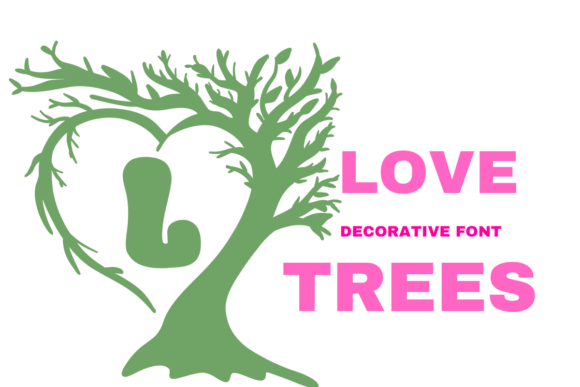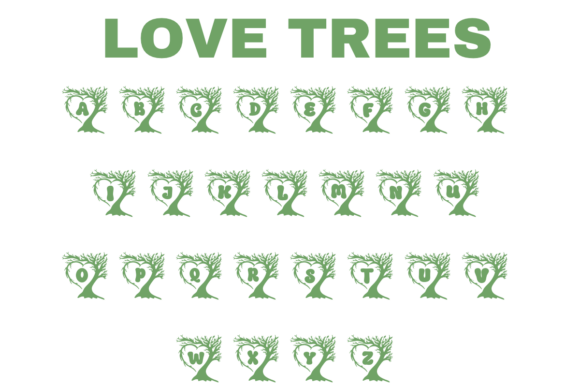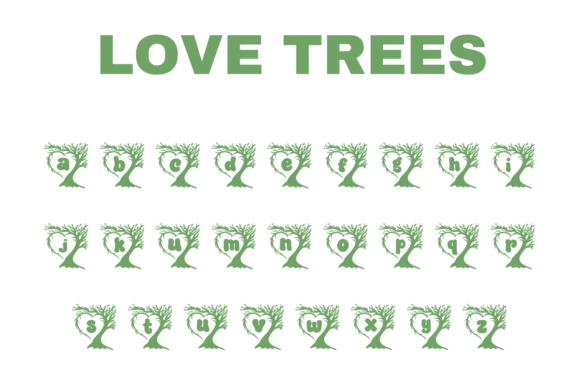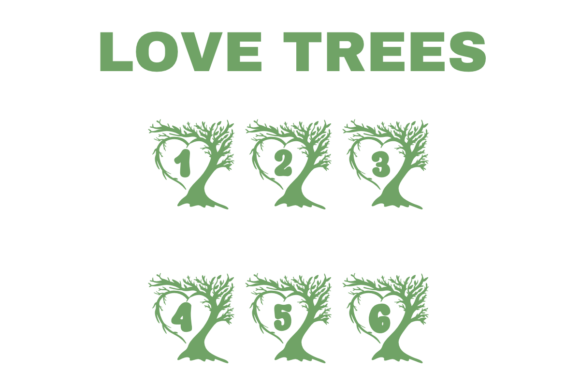
Love Trees Font: A Whimsical Decorative Font for Cricut & DIY Projects
About the Love Trees Font
The Love Trees Font is here to transform your projects with its distinctive character and style. Love Trees is a decorative font. You can use it for taking notes, writing a diary, or making greeting cards. However, you can still use it for other designs, such as banners, content, mugs, cards, shirts, stationery, social media posts, and more!
Love Trees’ decorative nature makes it ideal for headlines, short text blocks on posters or packaging, and branding elements requiring a whimsical touch. It excels in applications where visual impact is prioritized over large amounts of text. Avoid using it for body copy or UI elements; its ornate style is not legible at smaller sizes or in continuous blocks of text.
The font projects a friendly, playful personality. It would suit brands targeting a young, creative audience, perhaps in the food, fashion, or children’s industries. Pair it with a clean sans-serif like Lato for contrast and readability in supporting text, or a script font like Great Vibes for a cohesive, hand-drawn aesthetic.
For a more sophisticated feel, consider pairing it with a classic serif like Garamond or a geometric sans-serif like Futura to create a balanced contrast between playful and refined elements.